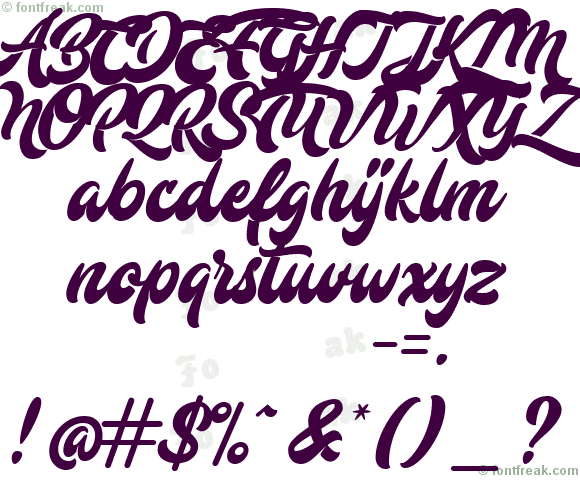
Mustardo
The Mustardo font by Clement Nicolle is a striking display typeface that exudes a playful yet sophisticated charm. This font falls under the category of script, characterized by its fluid, handwritten style that captures the essence of organic brush strokes. The Mustardo font showcases a moderate stroke weight with a balanced contrast, giving it a lively yet legible appearance. Its generous spacing between characters enhances readability while allowing the letters to breathe, making it versatile for various design applications.
This font is particularly well-suited for wedding invitations, where its elegant curves can convey romance and personal touch. Additionally, it works beautifully for restaurant menus, adding a dash of personality and warmth that can entice diners. Mustardo can also enhance the visual appeal of movie posters, helping to create an eye-catching focal point that draws viewers in. Content creators will find it ideal for social media graphics, where its unique character can help brands stand out in a crowded digital landscape.
What sets the Mustardo font apart is its ability to blend artistic flair with practicality. It captures attention while remaining functional, making it a standout choice for anyone looking to make a lasting impression. Whether you’re designing a heartfelt invitation or an engaging social media post, the Mustardo font free download is sure to bring your creative vision to life.